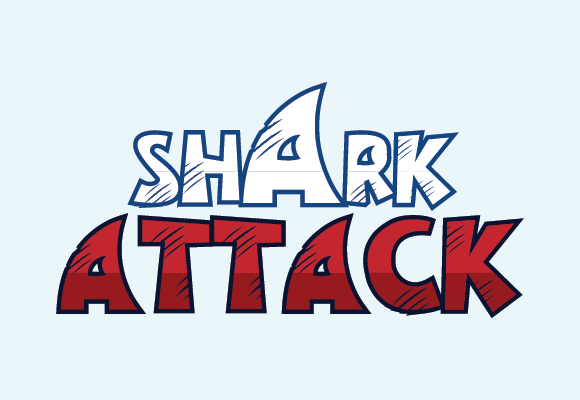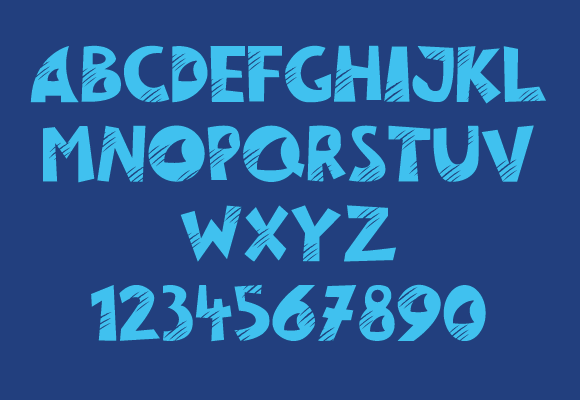
Introduction to Shark Attack Font
Imagine you’re browsing through a design inspiration board, and you stumble upon a sleek, modern poster with a bold headline that catches your eye. The font is edgy, yet elegant, and it instantly grabs your attention. That’s the magic of the Shark Attack Font, a high-quality sans-serif font designed to make your creative projects stand out from the crowd.
As a designer, you’re always on the lookout for the perfect design resource to elevate your work. The Shark Attack Font is a valuable addition to your toolkit, offering a unique and modern touch that’s perfect for a wide range of creative projects. Whether you’re working on a T-shirt design, a poster banner, or even a logo, this font is sure to make your work shine.
Key Features of Shark Attack Font
- High-quality design resource with a unique, bold, and playful style, perfect for creative projects.
- Designed with a modern and edgy aesthetic, making it suitable for a wide range of creative projects, from logos to graphics.
Honest Review: Shark Attack Font
As a designer, I’m always on the lookout for unique and high-quality fonts to elevate my creative projects. Recently, I came across the Shark Attack Font, and I must say, it’s been a wild ride.
Here’s what works well: ✨ The font is bold and eye-catching, making it perfect for titles and headings. The shark-inspired design adds a fun and playful touch to any project. Additionally, the transparent background allows for seamless integration with other design elements.
- High-quality design: The Shark Attack Font is expertly crafted, with crisp lines and smooth edges.
- Creative possibilities: The font’s unique design offers endless possibilities for creative projects, from graphic novels to advertising campaigns.
However, there are some limitations: ⚠️ The font may not be suitable for projects requiring a more professional or corporate look. Additionally, some users may find the shark design too playful or distracting.
Overall, I’m impressed with the Shark Attack Font. It’s a great addition to any designer’s toolkit, and I’m excited to see how it will be used in future creative projects.
Shark Attack Font is perfect for creative projects, such as posters, flyers, and brochures. It’s also great for presentations, social media graphics, and website designs. With its high-quality design and transparent background, you can use it to create eye-catching and professional-looking designs.